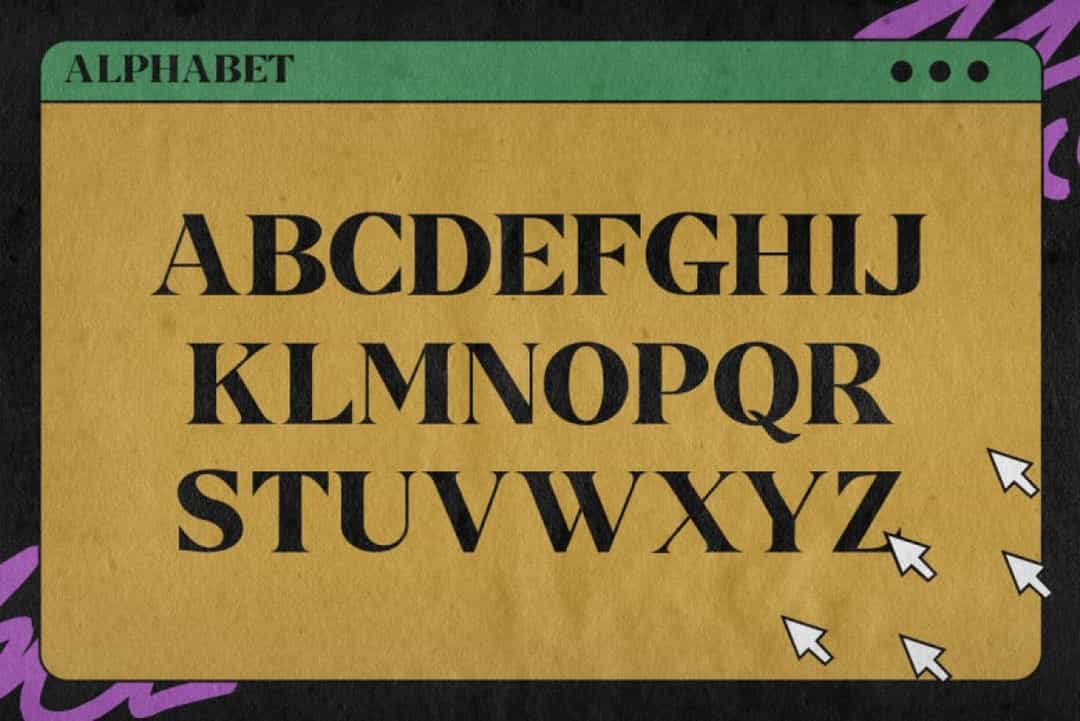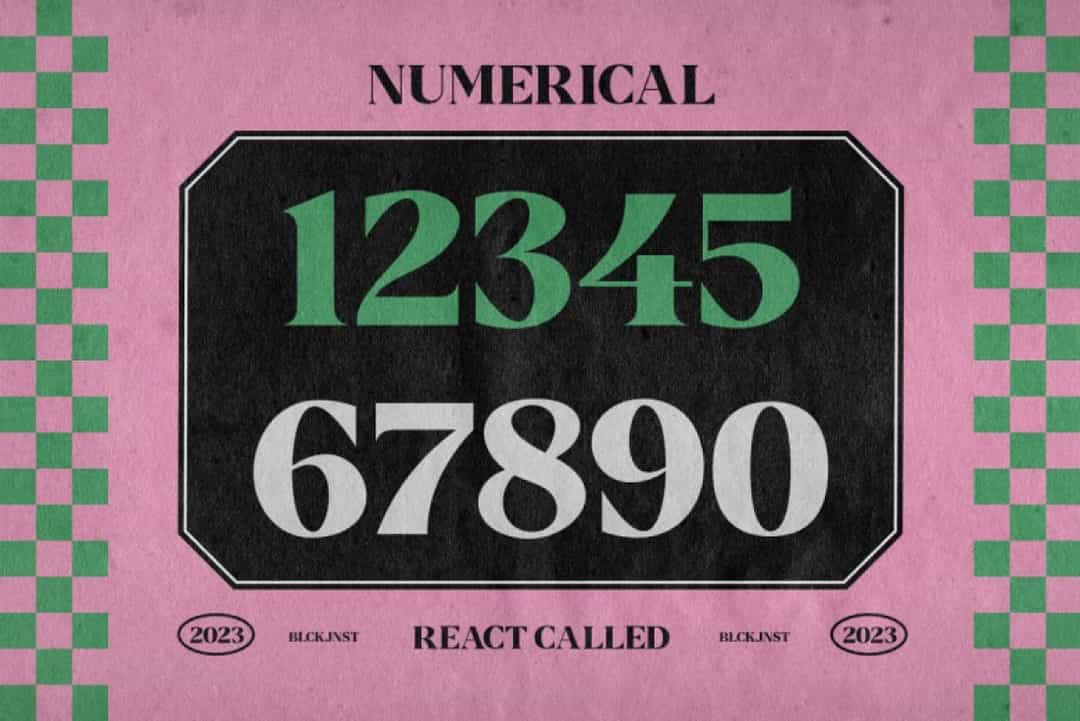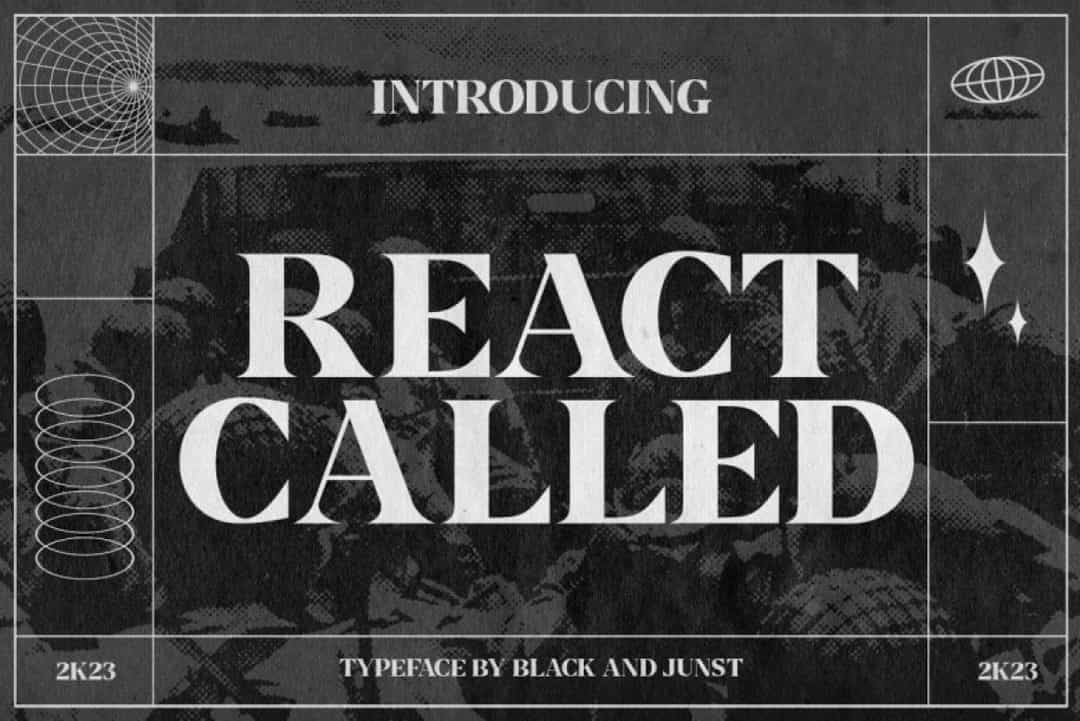
React is a modern and elegant serif typeface. With its versatile design, React can fit seamlessly into many situations. Plus, this font is PUA encoded so that all its glyphs and swashes can be easily accessed!